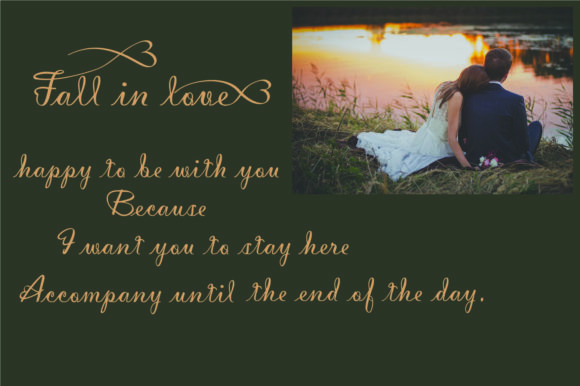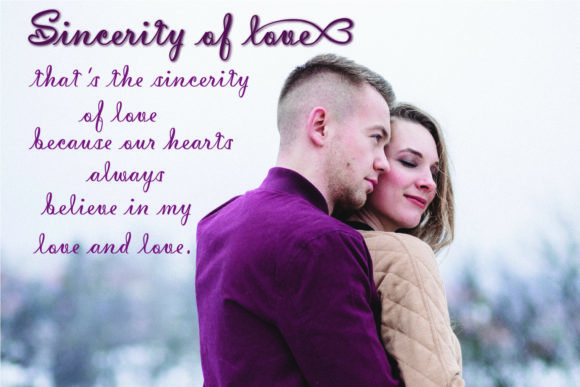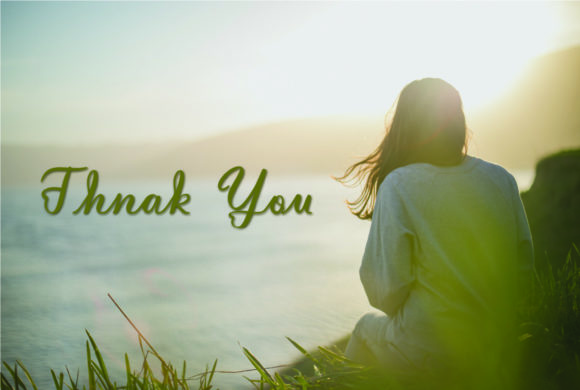
My Heart Font
About My Heart Font
My Heart is a charming modern script font with a casual style. It will add a romantic touch to any crafting project!